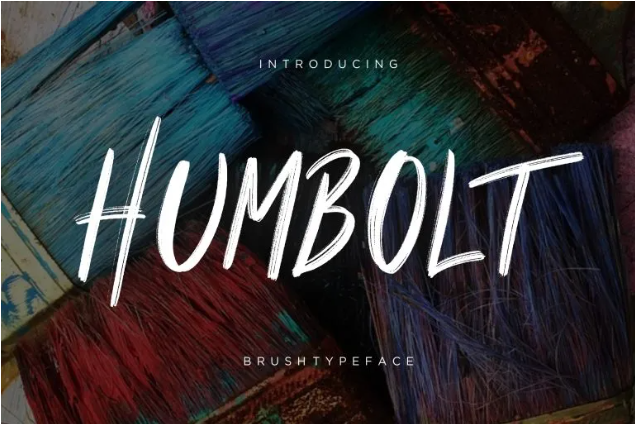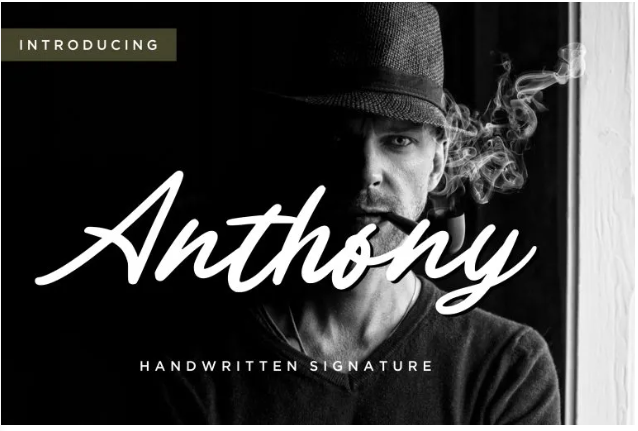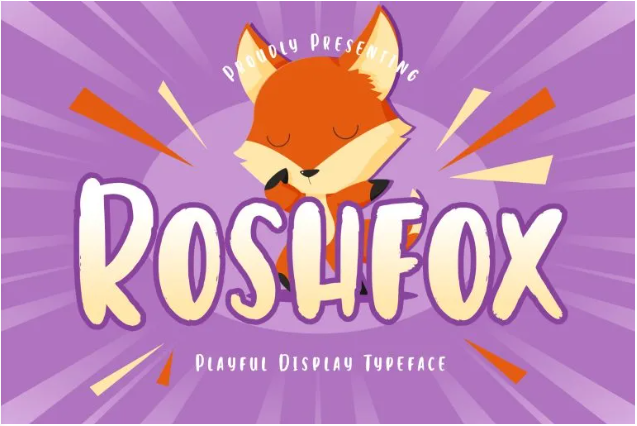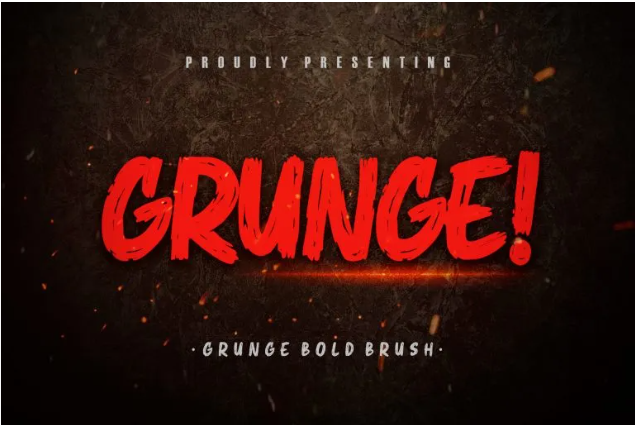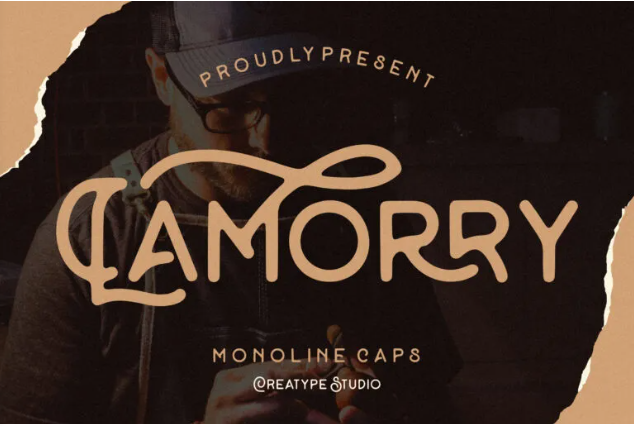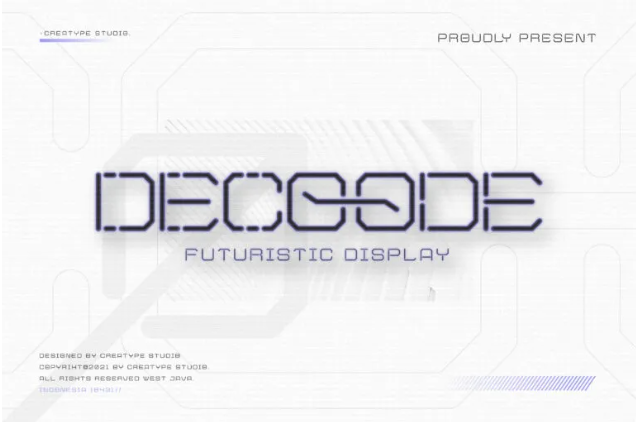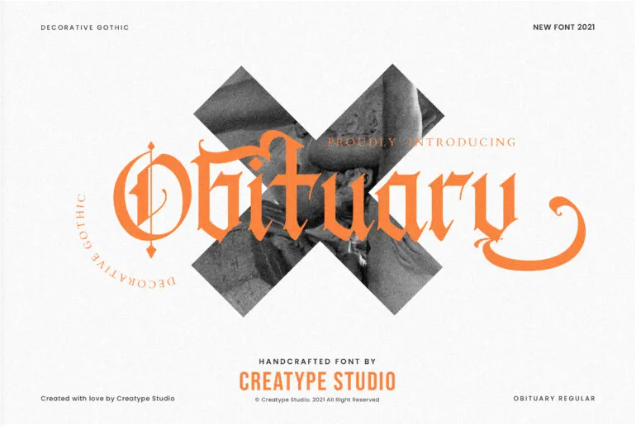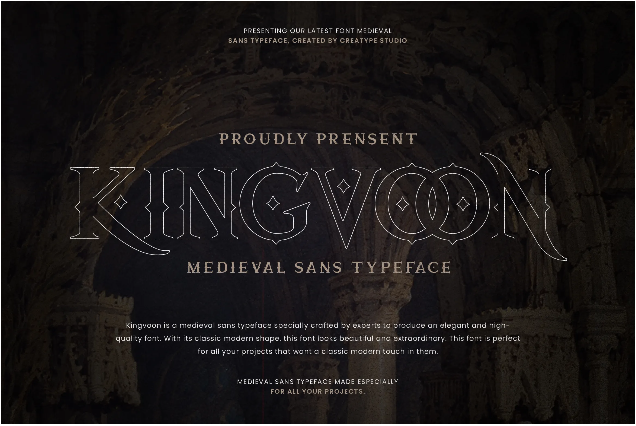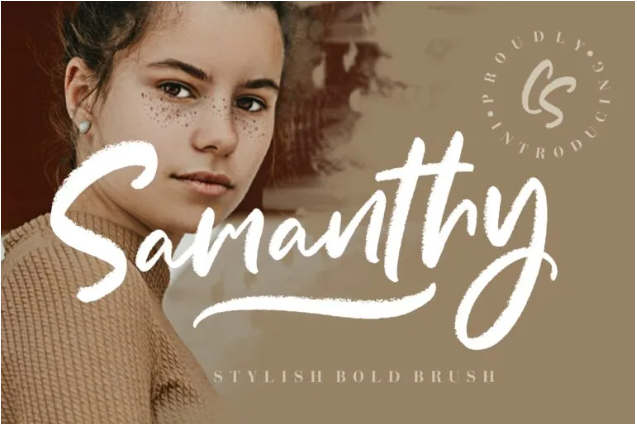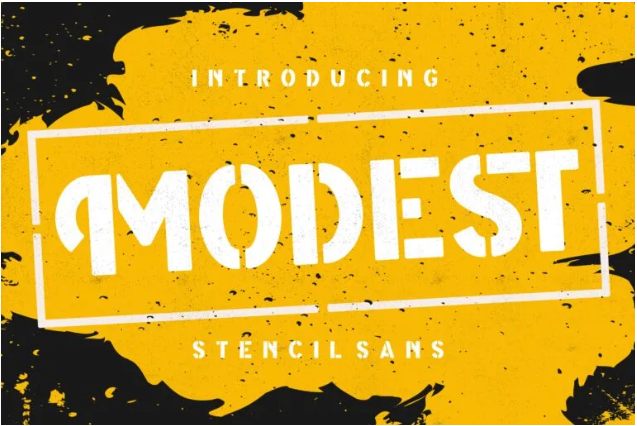
Best Fonts For T-Shirts: 20+ Expressive Fonts For Catchy Designs
Best Fonts For t-shirts: 20+ Expressive Fonts For Catchy Designs
Different fonts speak for different objectives. For t-shirt design, you not only need a readable font but also an intriguing one to capture your customers’ attention. Take a look at our creative font collection of the best fonts for t-shirts that you can choose from!
20+ Best Fonts for T-Shirts
Regardless of the theme, fonts in t-shirts should be engaging, energetic, fun, and most importantly can deliver the message. There is one for everybody, from youth, teens, kids, adults, and even vintage style. Ready to see our best fonts? Here we go!
1. Humbolt
Humbolt Brush Typeface
Let’s begin the list with Humbolt, the font is a brush typeface. Inside the pack, you’ll get an interesting choice of capital letters.
2. Barthony
Barthony Script Font
Barthony is a handwritten script font—one of the good fonts for t-shirts. The font exudes a wholesome feel, rather than the regular distro fonts.
3. Junkies Style
Junkies Style Bold Script Font
If you’re looking for the best fonts for t-shirts, Junkies Style is up there. It has bold letters and a retro-script style to produce stand-out text on t-shirts.
4. Samanthy
Samanthy Bold Brush Script Typeface
Samanthy is perfect for your feminine t-shirts. The girly vibe from this bold brush font is casual yet pretty.
5. Modest
Modest Stencil Sans Font
Contrary to the name, Modest is not low-key at all. Its stencil style bounds to capture readers’ eyes. If you’re wearing this on your t-shirt, be ready to get more attention.
6. Hamston
Hamston Bold Display Font
Hamston is one of the best fonts for t-shirts in a vintage theme to serve your classic designs. The bold-stamp style will naturally dominate your t-shirts with a vintage mood.
7. Raysha
Raysha Signature Script Typeface
Add Raysha to your designs! The high-contrast signature font style makes your designs look more friendly and feminine
8. Glitcher
Glitcher Sans Display Font
If you want cool fonts for t-shirts, try something extraordinary like Glitcher. This sans-serif font embodied the obstructed display, ideal for t-shirt design with adventurous style.
9. Jhaqlyn
Jhaqlyn Modern Calligraphy Font
Jhaqlyn brings a modern look to calligraphy designs. This script font looks good on vintage, adventurous, or masculine t-shirt designs.
10. Kayooh
Kayooh Japanese Display Typeface
Even at a glance, you already know about this font. Kayooh has a Japanese style in the typeface, perfect for your Japanese-themed t-shirts.
11. Anthony
Anthony Signature Font
If you’re looking for a mature and manly font, try Anthony. This handwritten font complete with a signature writing style will bring a masculine tone to your t-shirt designs.
12. Roshfox
Roshfox Playful Typeface
The best fonts for t-shirts are the ones that can represent the product. Roshfox’s playful typeface can match perfectly with the teenage girls’ t-shirt’s charm.
13. Dalmaspot
Dalmaspot Dalmatian Spot Typeface
Inspired by the Dalmatian pattern, Dalmaspot makes a unique font for your t-shirt! Suitable for family-themed designs, even cuter for baby’s clothing.
14. Skulrock
Skulrock Display Typeface
Let’s get into some youth and wild font styles, like Skulrock. This hard-display typeface is perfect for urban clothing designs.
15. Grunge!
Grunge! Bold Brush Font for T-shirt Design
Similar to the last one, Grunge! is also a cool font for t-shirts. As a bold brush font, you can use this font to make bold statemen in other men’s fashion articles too, like hoodies or jackets.
16. Balinysh
Balinysh Handwritten Brush Font
The fact that there are three fonts with similar styles shows that this type of writing style is in demand for t-shirt design. However, Balinysh takes it to another level with extreme dry-brush looks.
17. Lamorry
Lamorry Monoline Font
It isn’t easy to find the best fonts for t-shirts, but for a vintage style, just look at Lamorry. Different from Hamston, Lamorry is more flowy with its capital letters and decorative swashes.
18. Quicksliver
Quicksliver Handdrawn Brush Typeface for T-shirt Design
If you aim for teenagers as your market, try using Quicksliver in your t-shirt designs! The brush look adds uniqueness to the hand-drawn calligraphy style.
19. Decoode
Decoode Futuristic Font for Modern T-shirt Design
Decoode has a futuristic typeface. You should consider this font for your t-shirt designs since it conveys a quirky tone and mode to the design, particularly in this tech era.